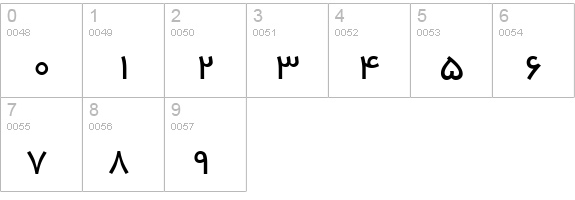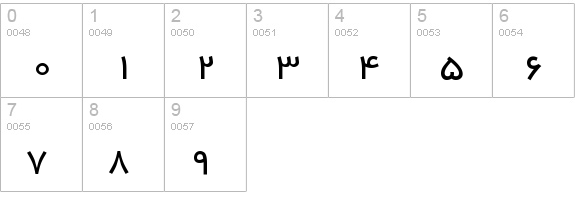
B Yekan font is a modern and stylish typeface that exudes professionalism and elegance. With its clean lines and unique character shapes, B Yekan is perfect for a wide range of design projects, from branding to editorial layouts. This versatile font is free to download at FontsMarket.com, making it accessible to designers and creatives looking to add a touch of sophistication to their work. Whether you're designing a website, creating a logo, or working on a print project, B Yekan is sure to make a statement and elevate your designs to the next level.